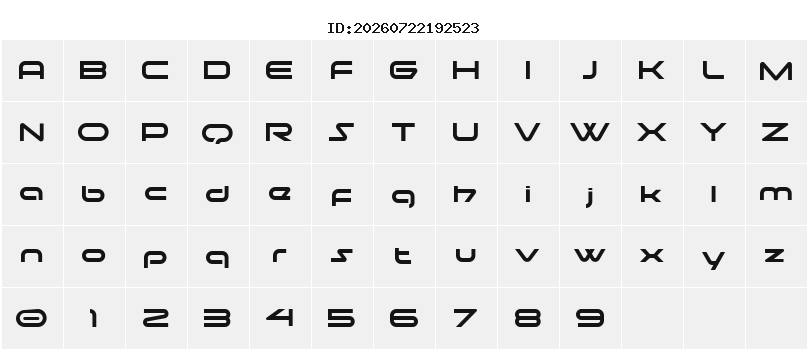
moonhouse Preview
• Font Name: moonhouse
• Full Font Name: moonhouse
• Designer: NimaVisual
• Manufacturer: NimaVisual
About moonhouse.ttf
moonhouse.ttf is a modern, elegant sans-serif font designed for ultimate readability and visual harmony. Perfect for branding, headlines, web design, and print materials.